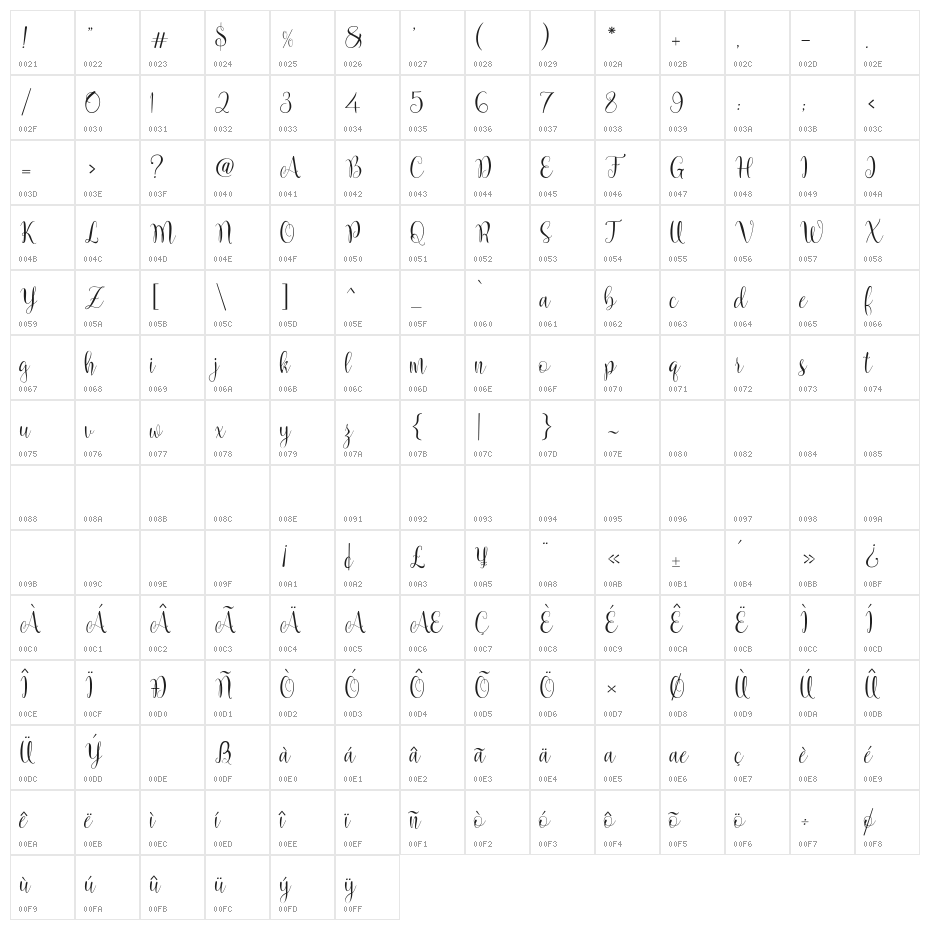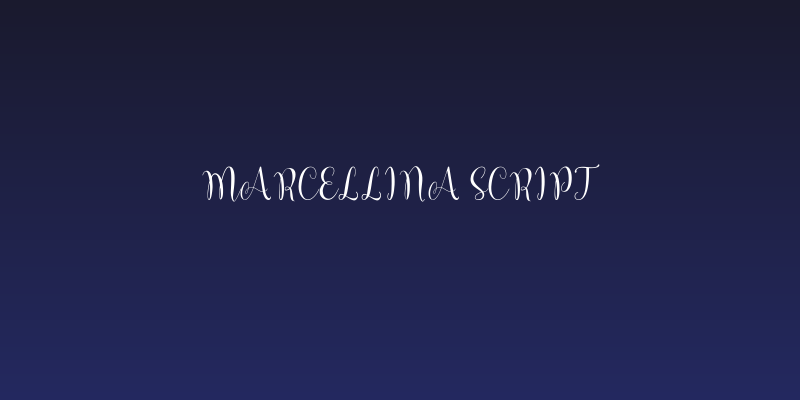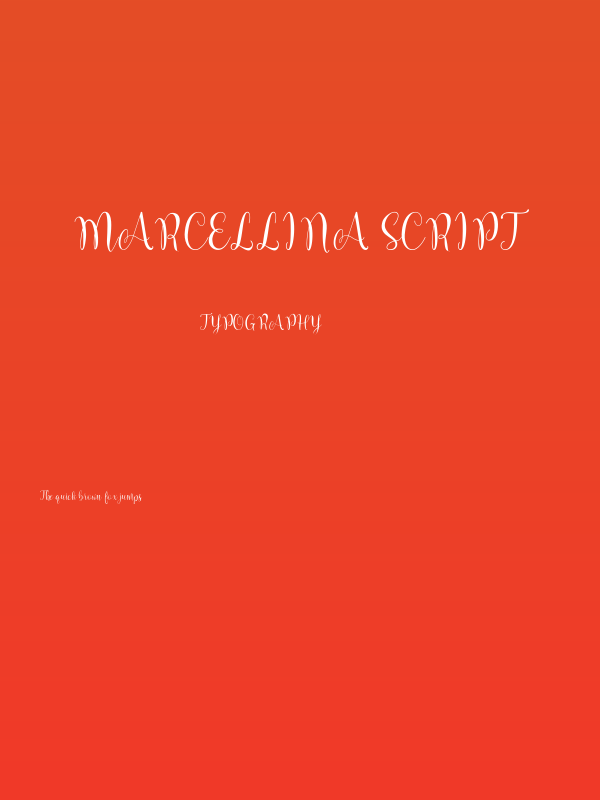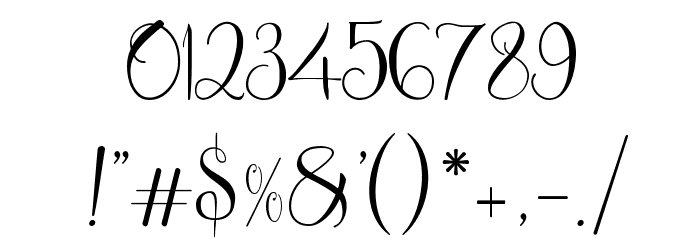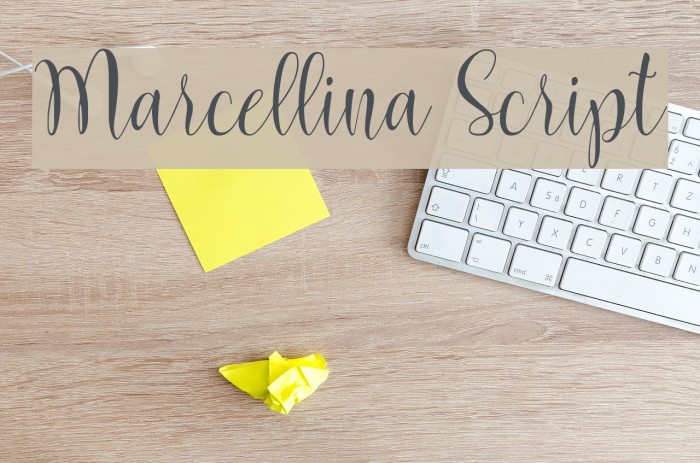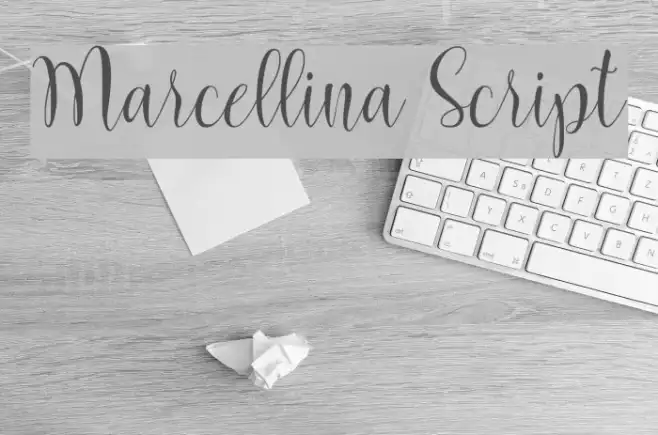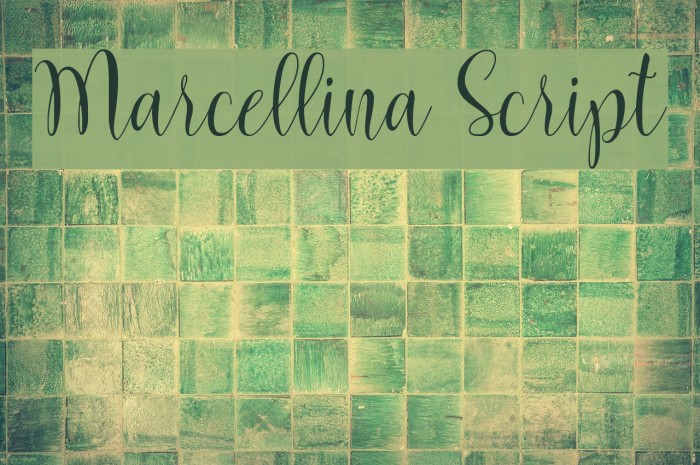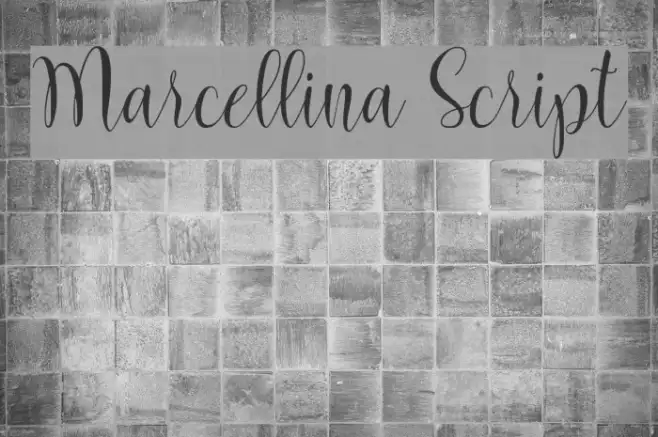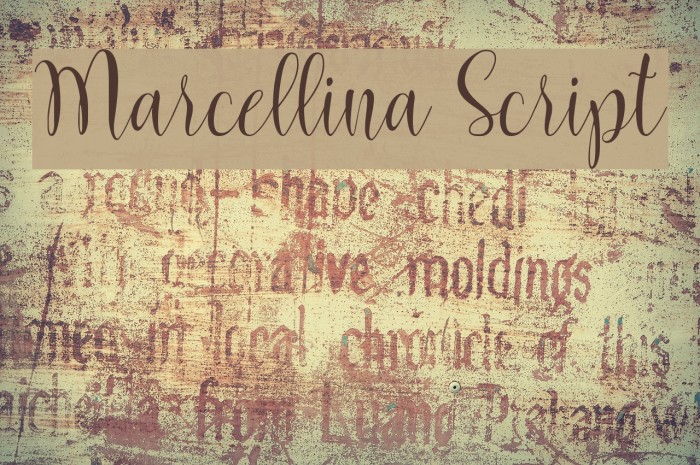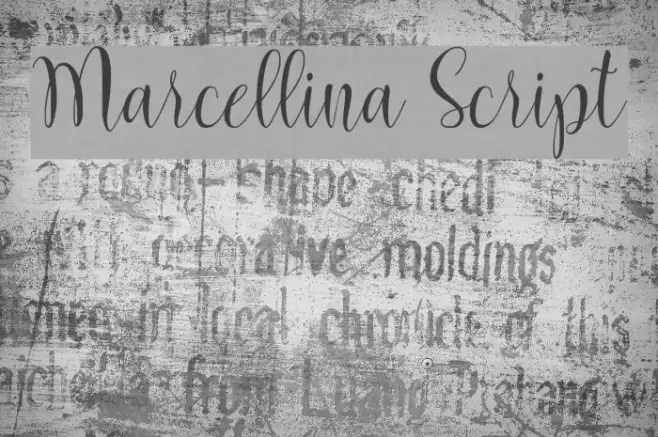
Marcellina Script Font
Marcellina Script Description
This elegant script font features a flowing, cursive style with intricate loops and swashes. The uppercase letters are ornate, with a distinct flair that adds a touch of sophistication. The lowercase letters maintain a consistent flow, enhancing readability while retaining an artistic touch. The numerals are styled to match the overall aesthetic, with curved lines and subtle embellishments. Special characters are thoughtfully designed to complement the script's graceful appearance, making it suitable for decorative purposes.
| Proposed Projects | Ideal for wedding invitations, greeting cards, branding projects, and elegant packaging designs. |